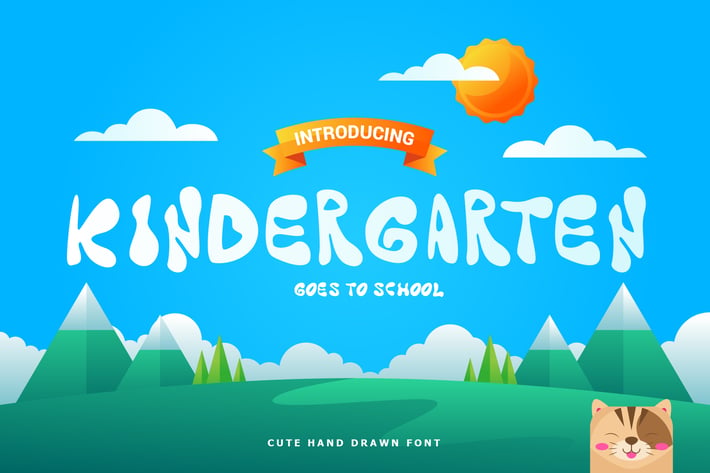
Kindergarten - Fun Children Typeface
Are you looking for a bold and fun font for children? We can help! Try to download our Kindergarten font. The font is suitable to use for casual purpose especially children related occasion :)